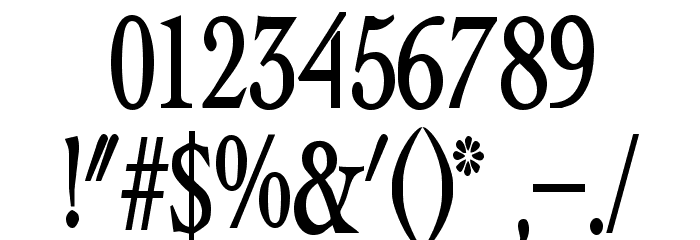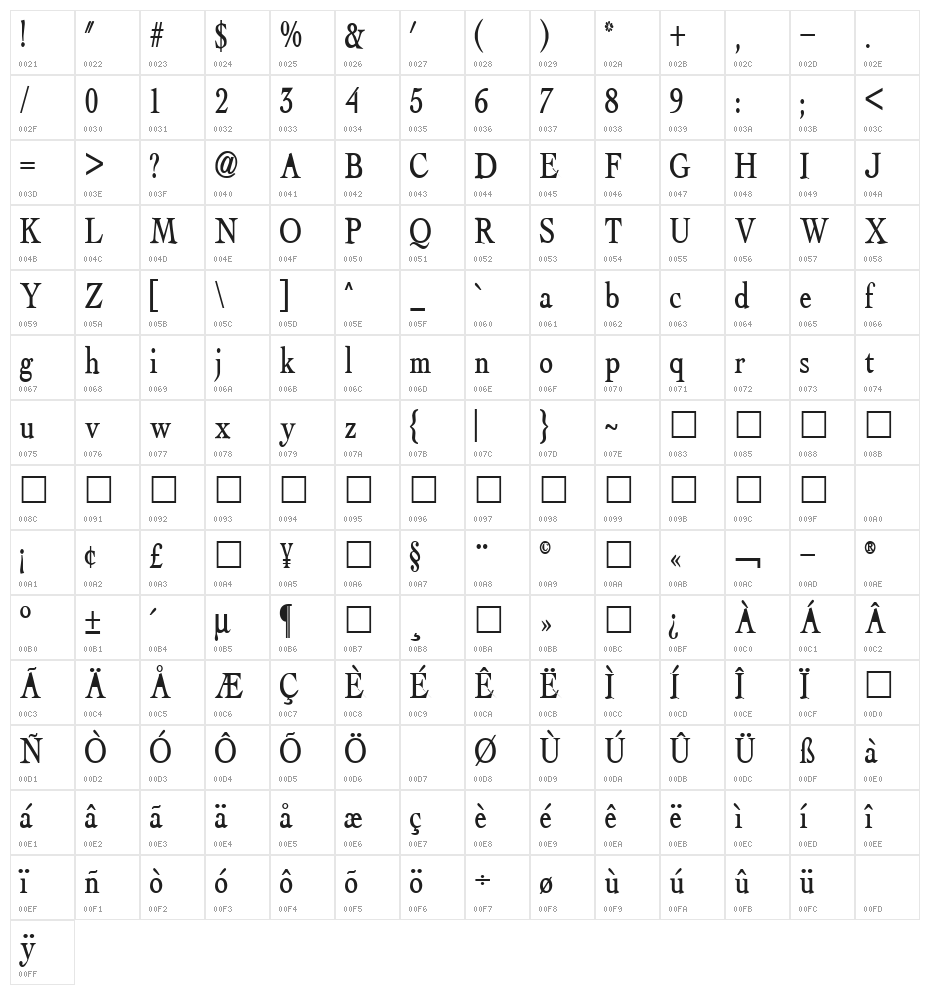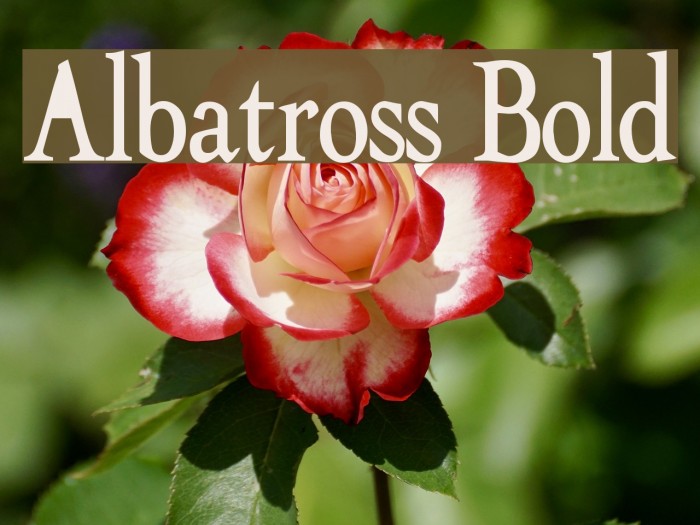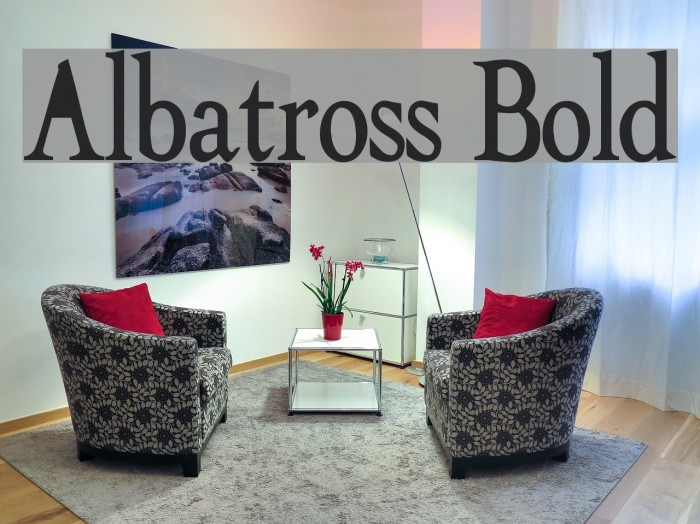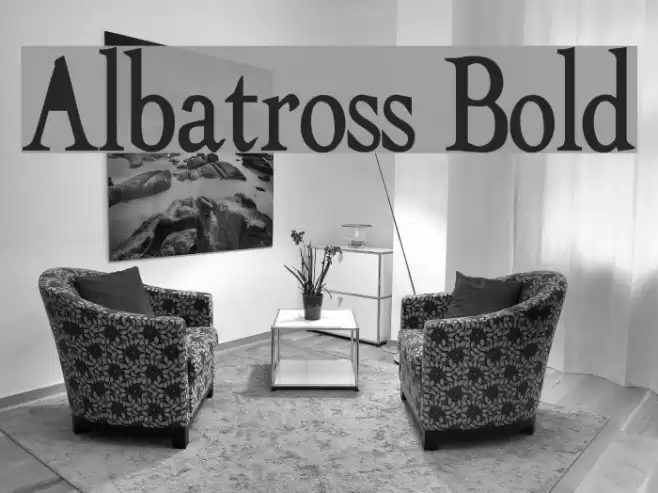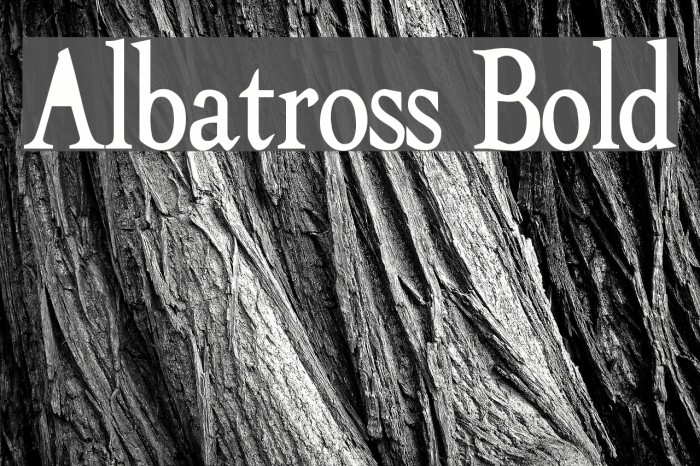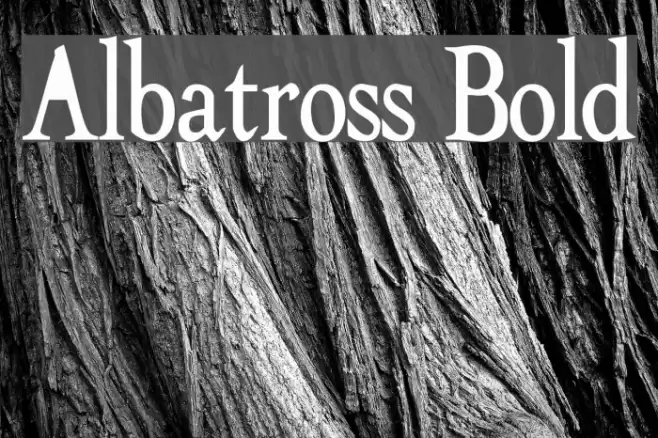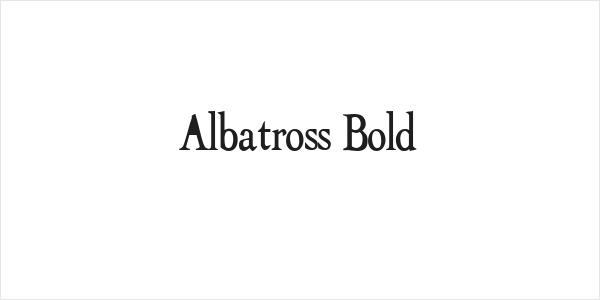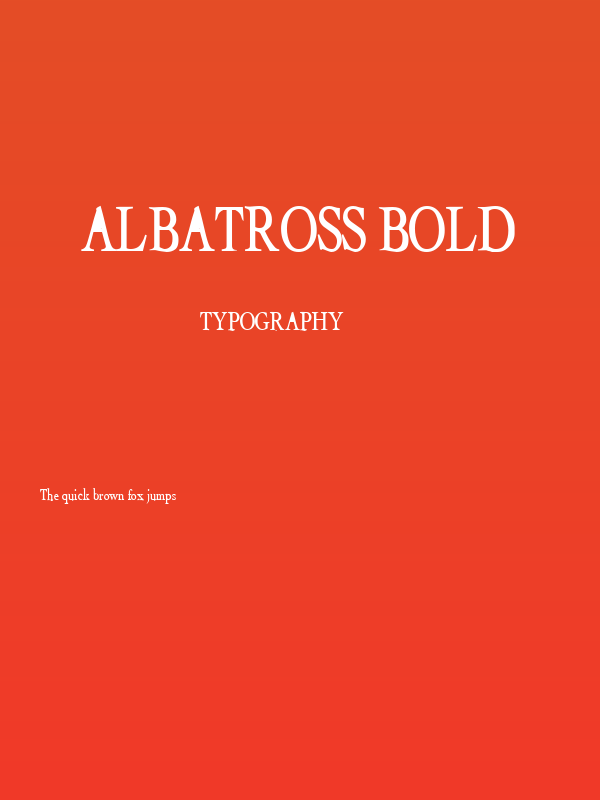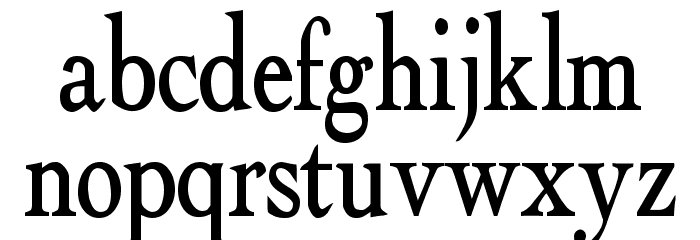
Albatross Bold Font
Albatross Bold Description
This font features a bold and classic serif style with strong, pronounced strokes and a traditional appearance. The uppercase letters are tall and commanding, while the lowercase letters maintain a balanced and readable form. The numerals are consistent with the overall bold theme, providing clarity and emphasis. Special characters are designed with the same boldness, ensuring they stand out. The font's structure is ideal for creating a sense of authority and elegance, making it suitable for formal and impactful designs.
| Use Case | Headlines, Logos, Editorials |
| Proposed Projects | Ideal for book covers, formal invitations, branding materials, and editorial headlines. |